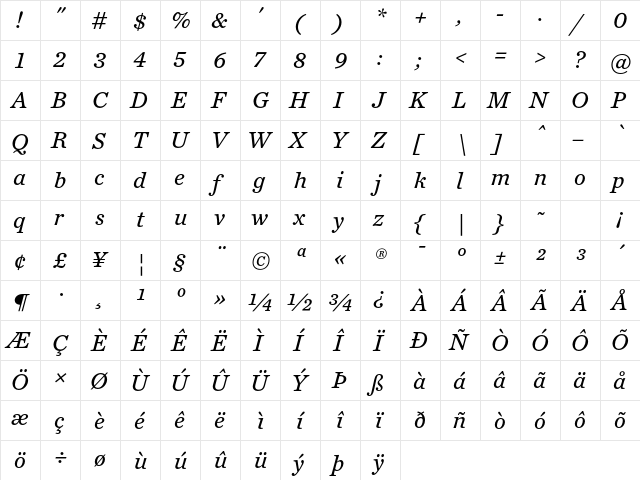
Chronicle Text G3 Italic
| Foundry | Hoefler & Frere-Jones |
| Designer | Hoefler & Frere-Jones |
Design Context for Chronicle Text G3 Typeface
Chronicle Text G3 is a composed and adaptable typeface that performs quietly and consistently across a wide range of design contexts. Its italic angle brings a sense of urgency and motion to the letterforms.
Pro Tip: Use Chronicle Text G3 for emphasis, pull quotes, and subheadings where its slanted energy can add rhythm to the layout.